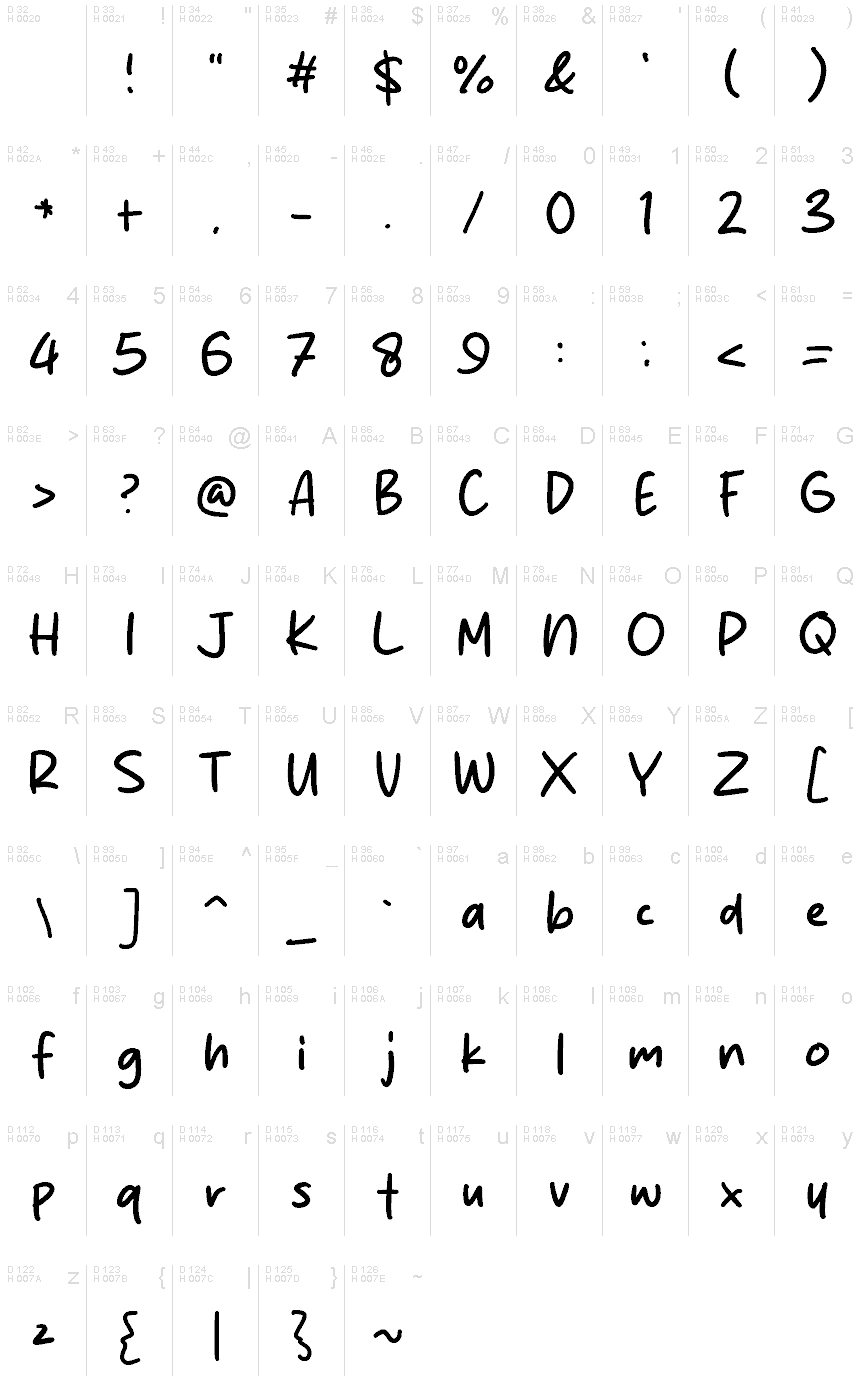
Mackay Andres
Mackay Andres font is a handwritten font designed by MJType. It brings together natural aesthetics of handwriting and the sharpness of freeform serifs. Expressive, casual, and similar to popular minimalistic vintage fonts, Mackay Andres’ main characters bring energy to the font while the supporting glyphs add some freshness.
As a free handwritten font that causes no budget strains, use it for magazine covers when addressing students, product labels, posters for language schools and kindergartens, book covers with fascinating tales from far-away lands and museum displays that share British culture.